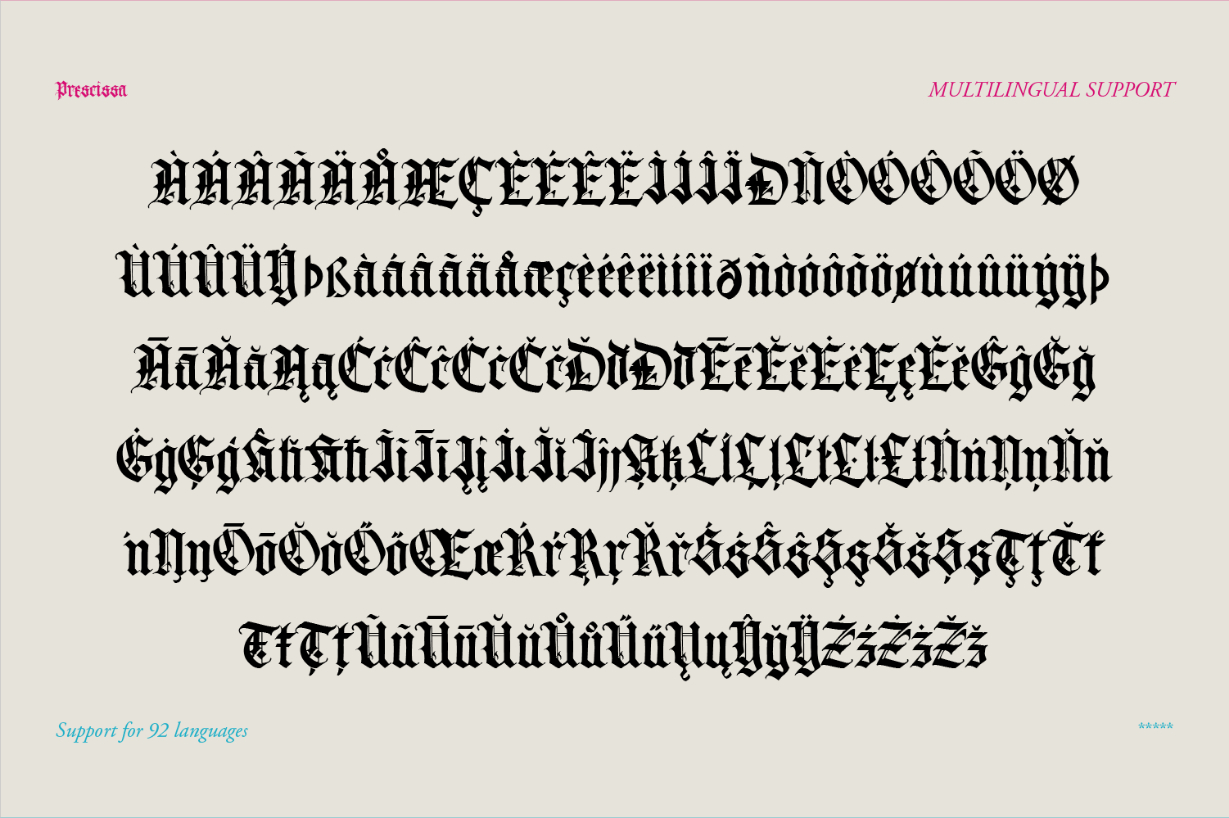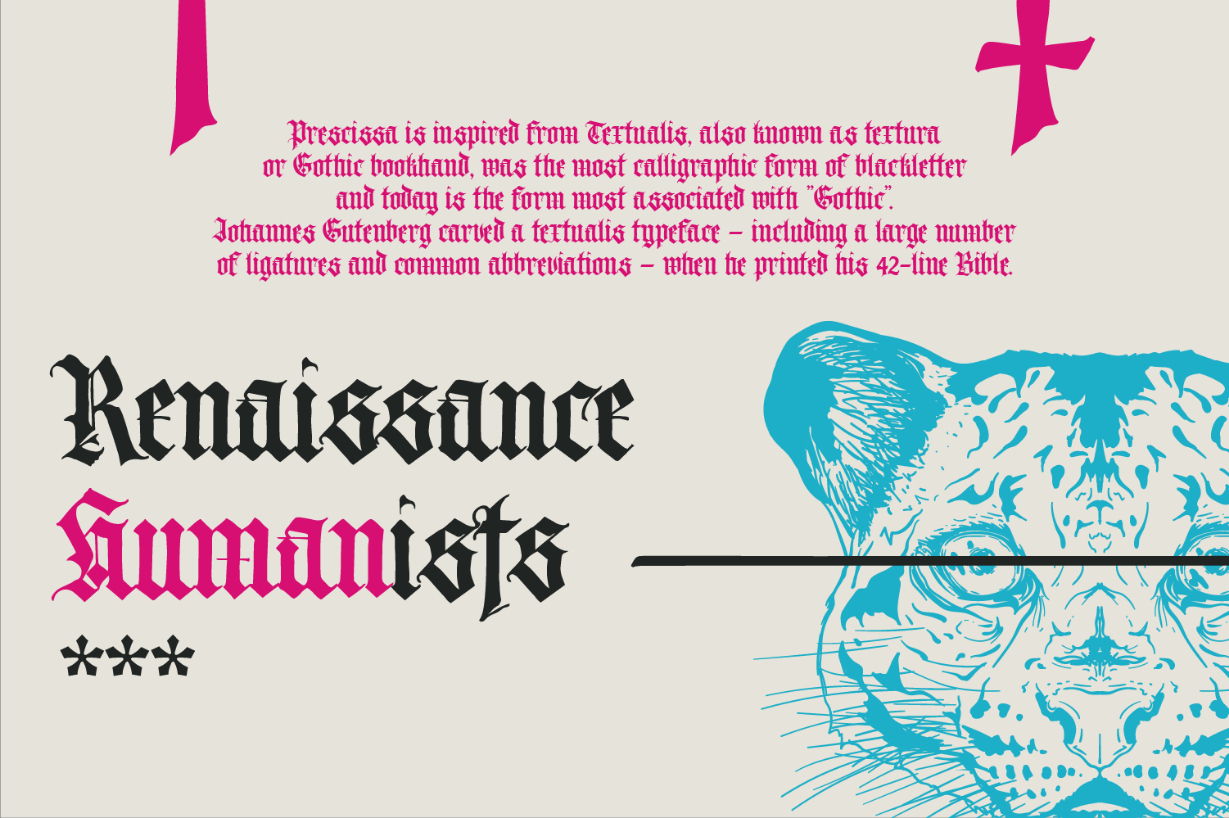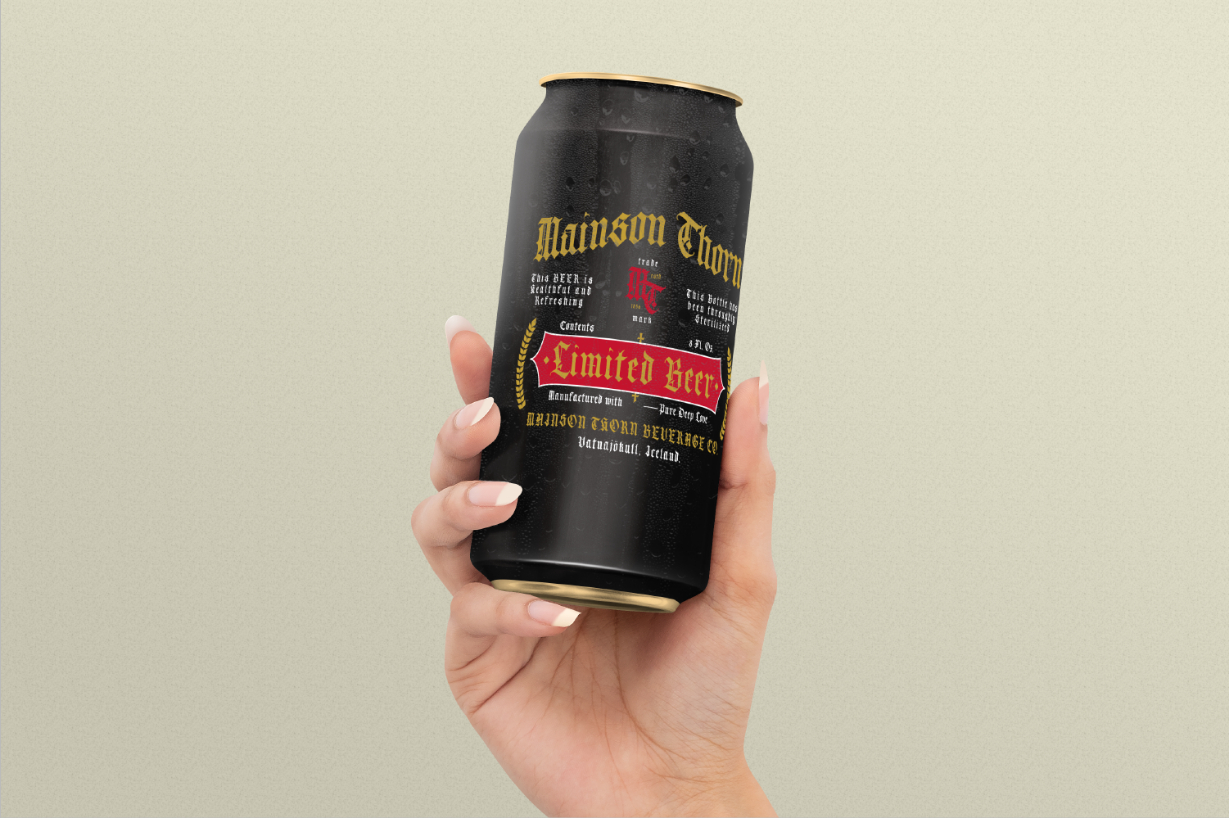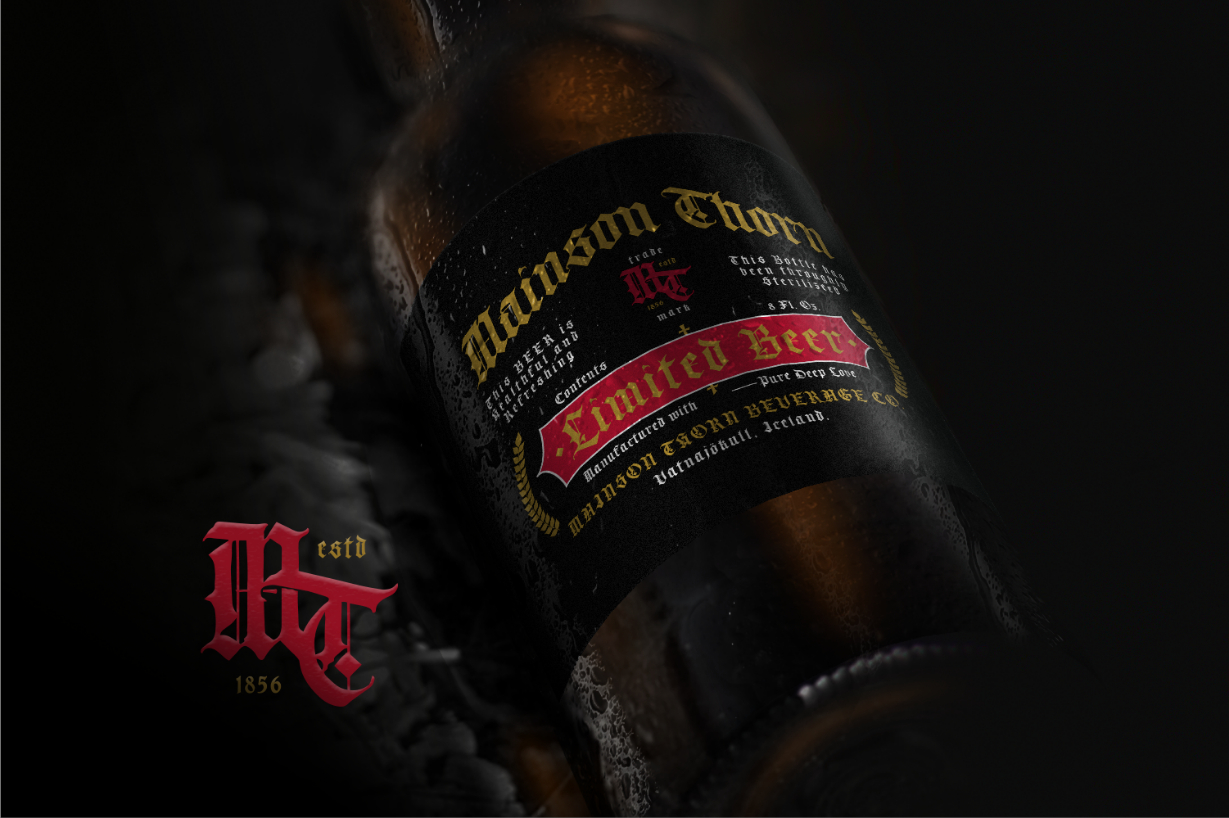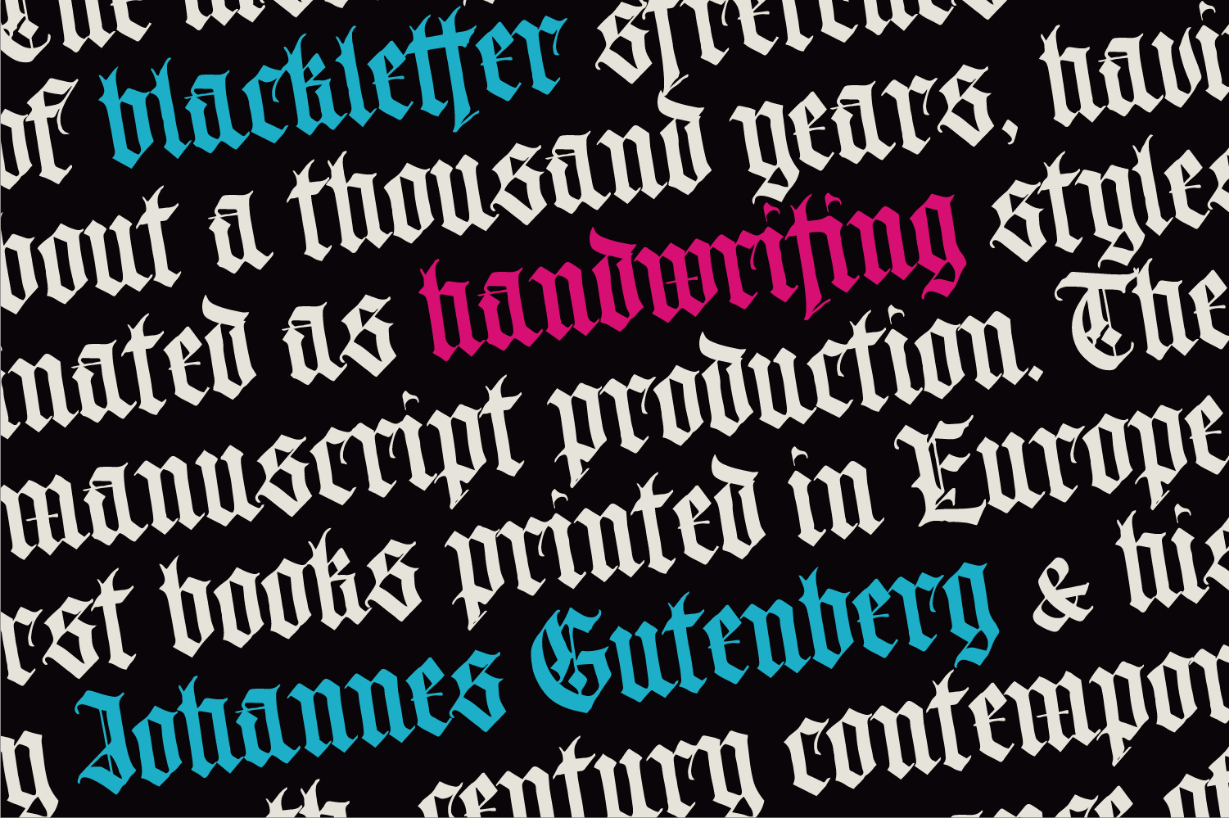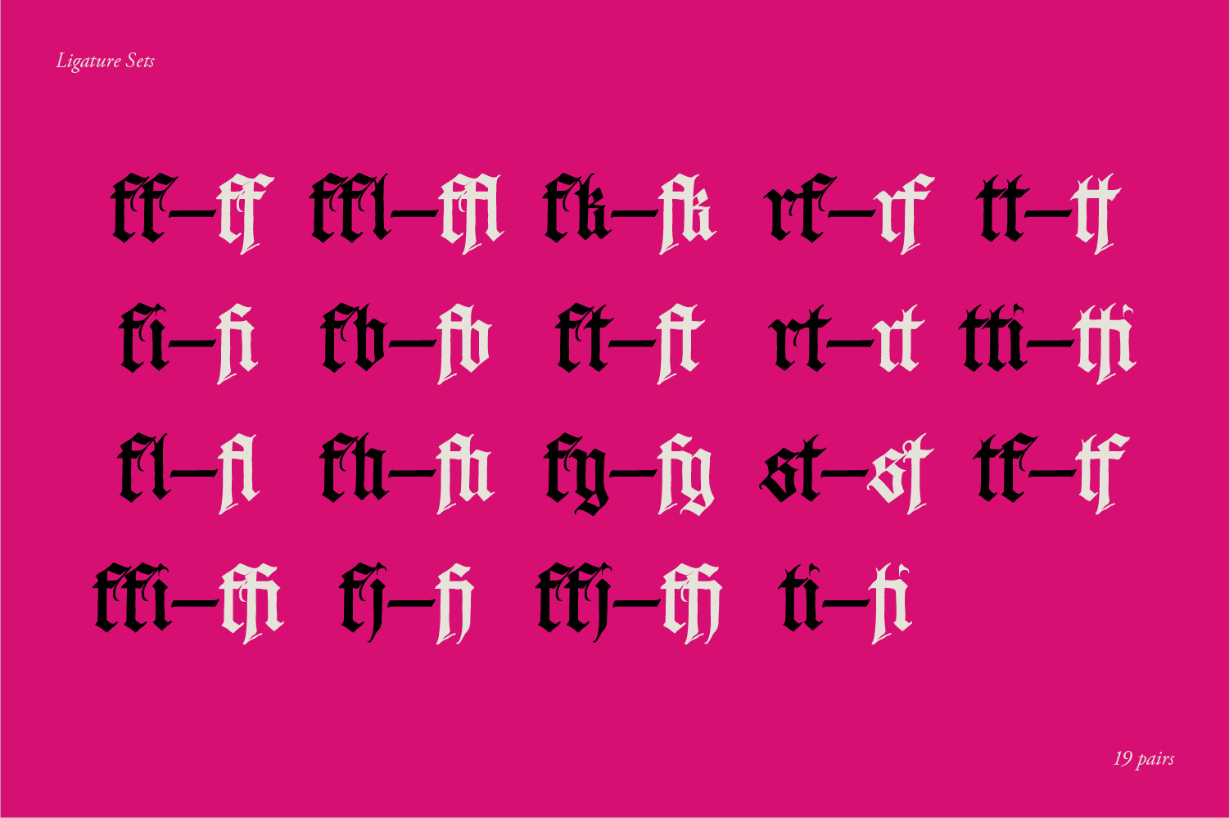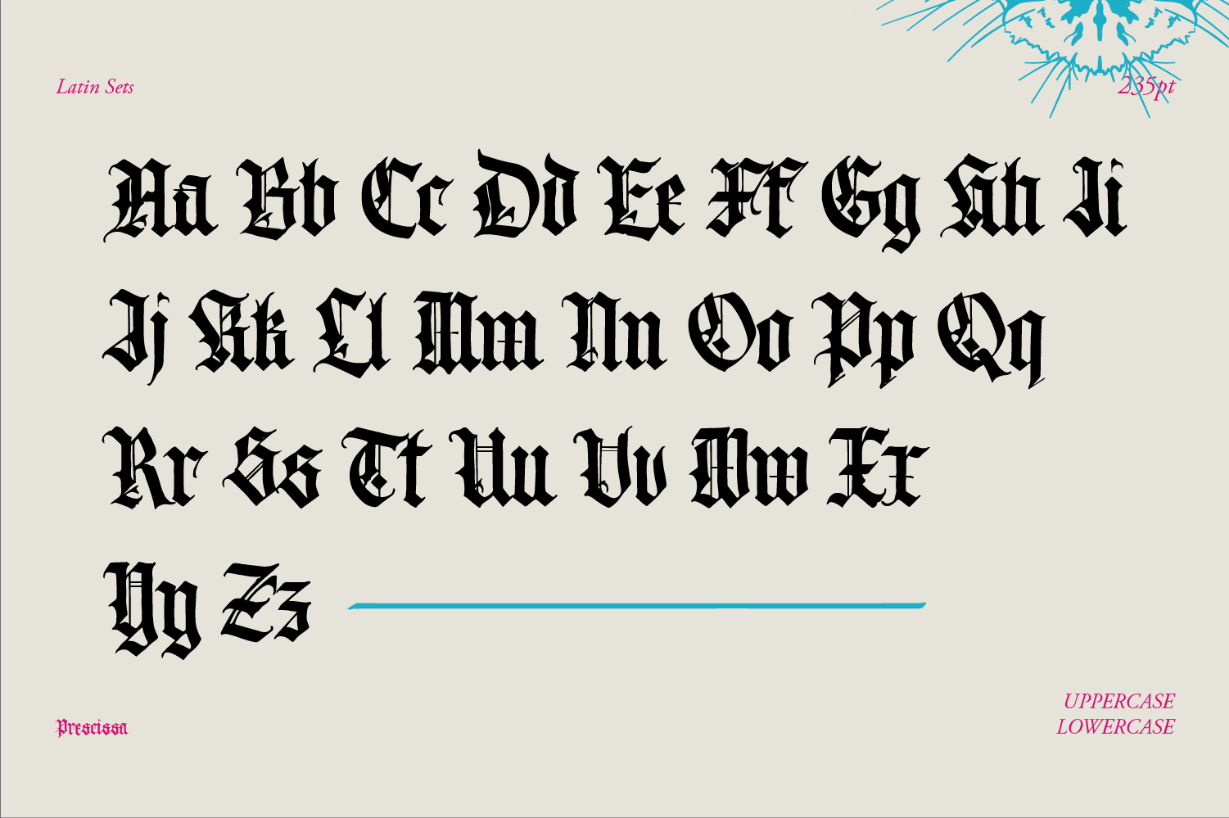
Prescissa Font
About Prescissa Font
Prescissa is an elegant and incredibly detailed blackletter font. This font is imposing and features uniquely shaped letters, and as a result, it will easily match a wide range of creations that require a distinct touch.